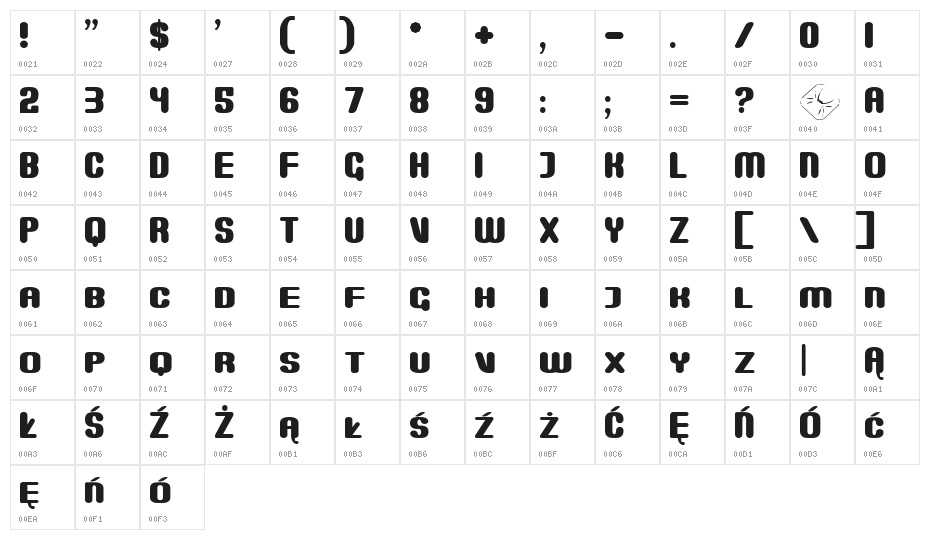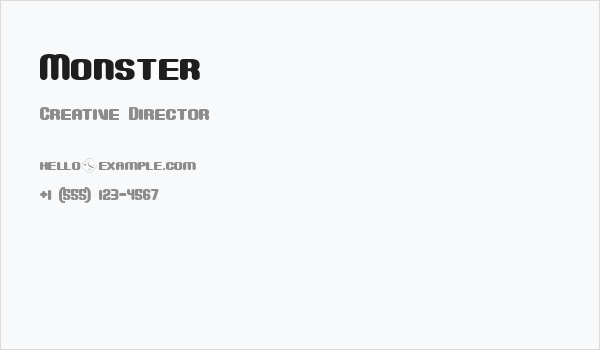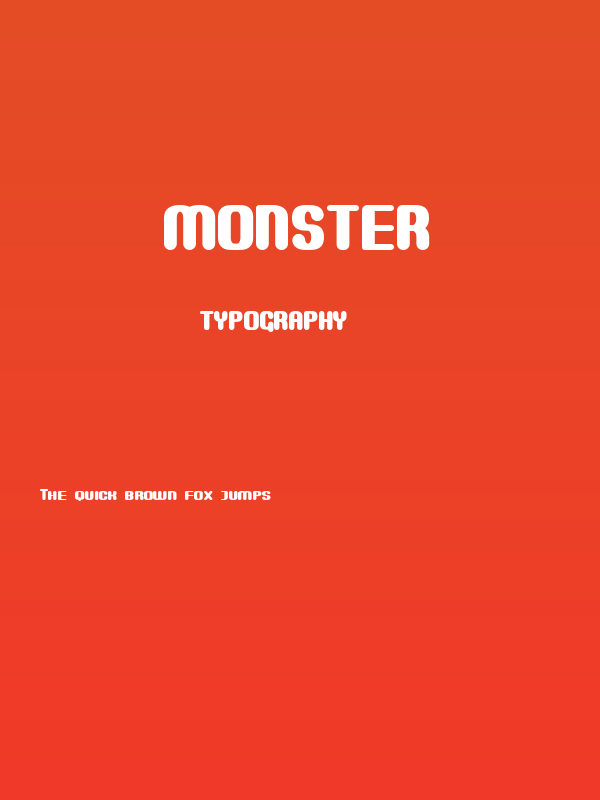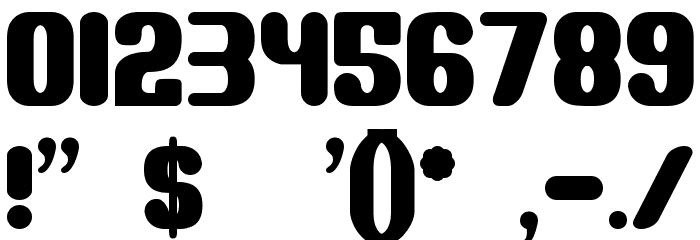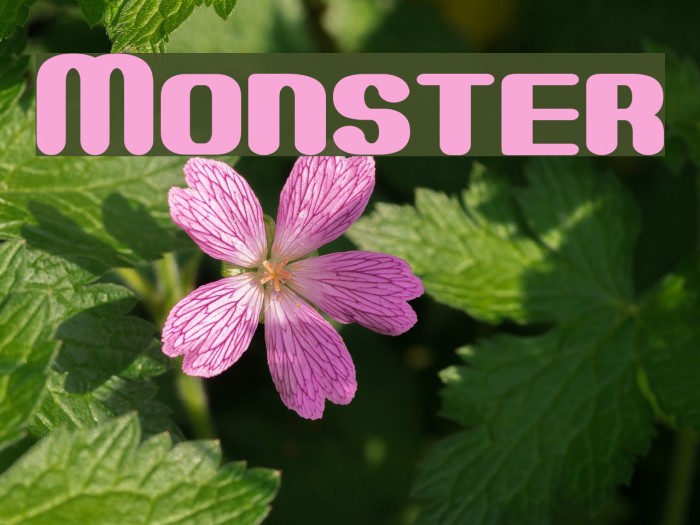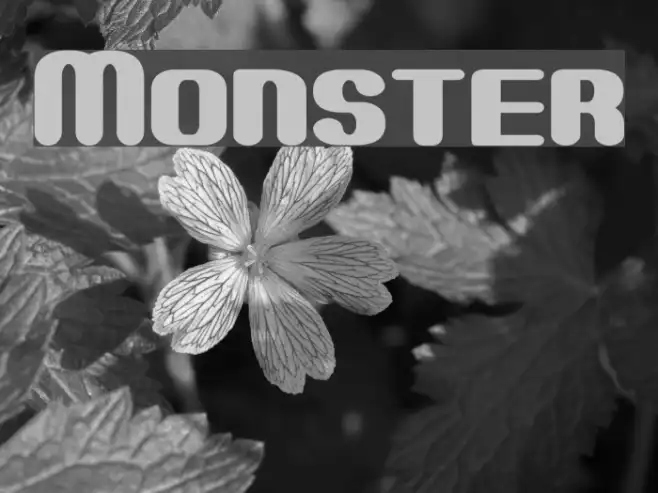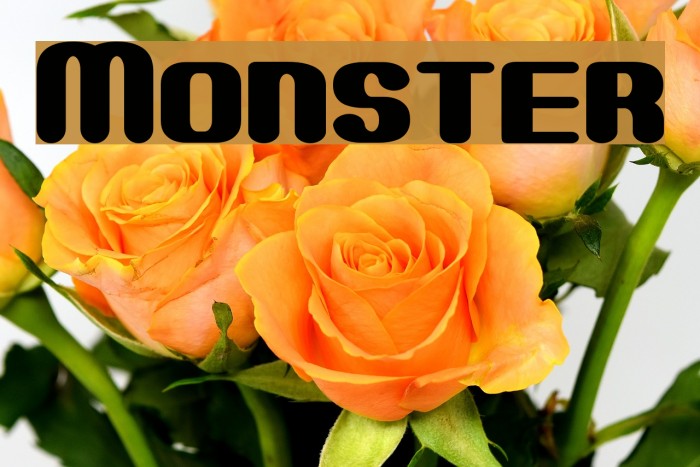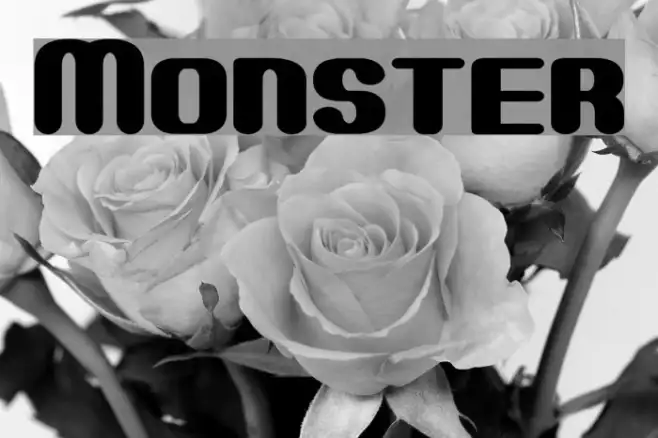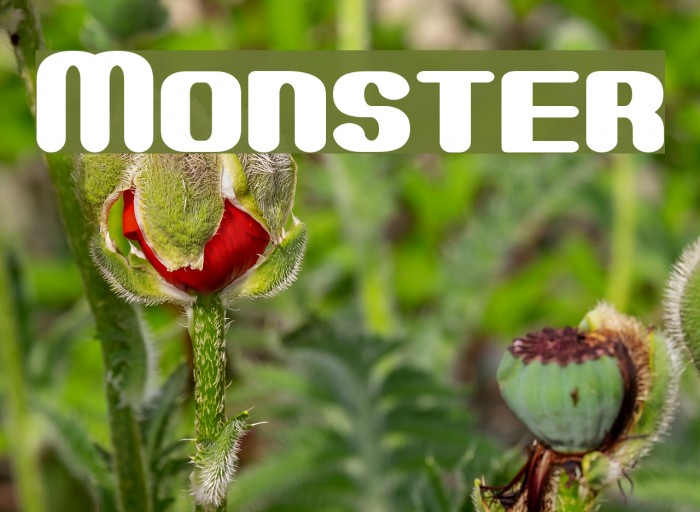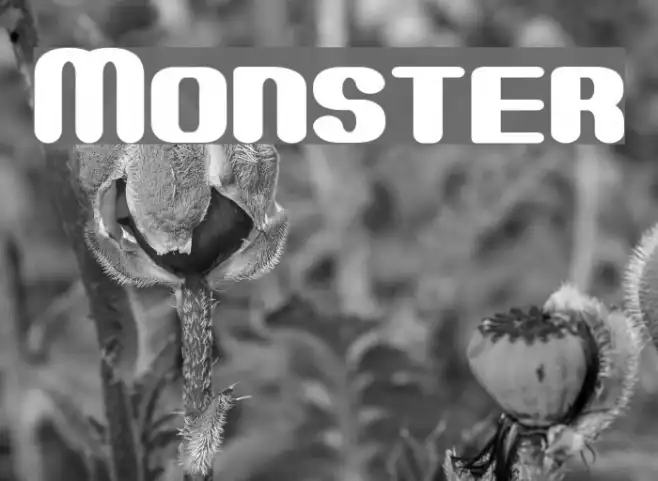
Monster Font
Monster Description
This font features a bold and playful design with rounded edges and a heavy weight, making it stand out in any setting. The characters are uniformly thick, providing a strong presence and a sense of stability. The rounded terminals and consistent stroke width give it a friendly and approachable appearance. It is highly legible, even at smaller sizes, due to its clear and distinct letterforms. The font's style is reminiscent of retro and vintage aesthetics, yet it maintains a modern appeal. It is versatile enough to be used in various design contexts, from branding to advertising, where a bold statement is needed.
| Overall Style | Modern, Retro |
| Proposed Projects | Ideal for branding, advertising, posters, and any project requiring a bold, eye-catching font. |